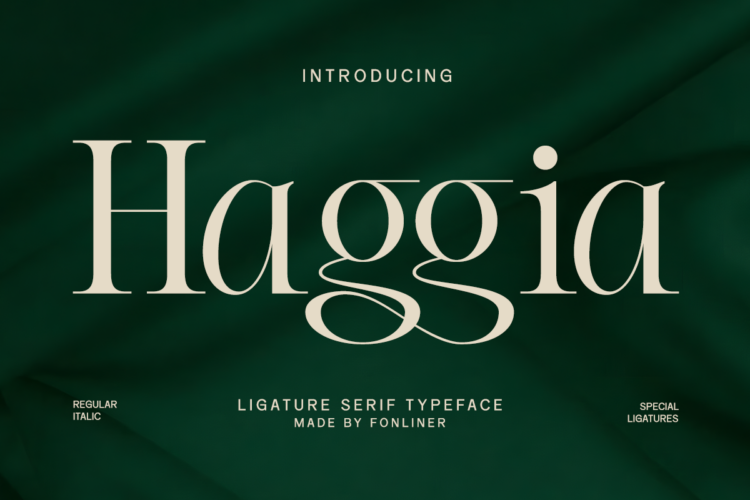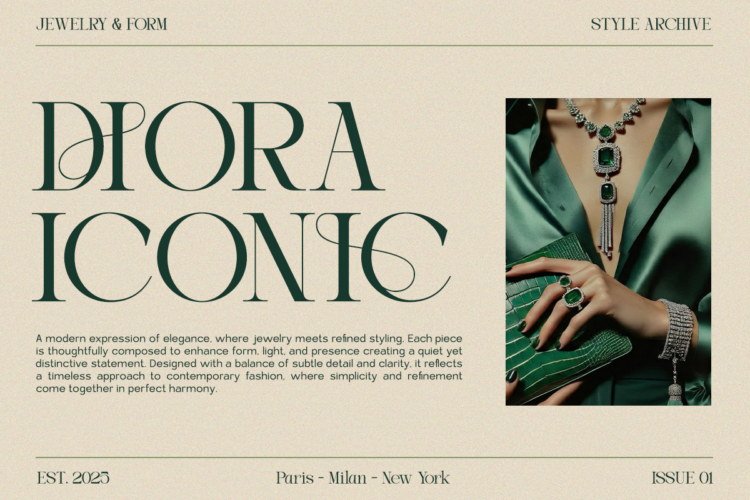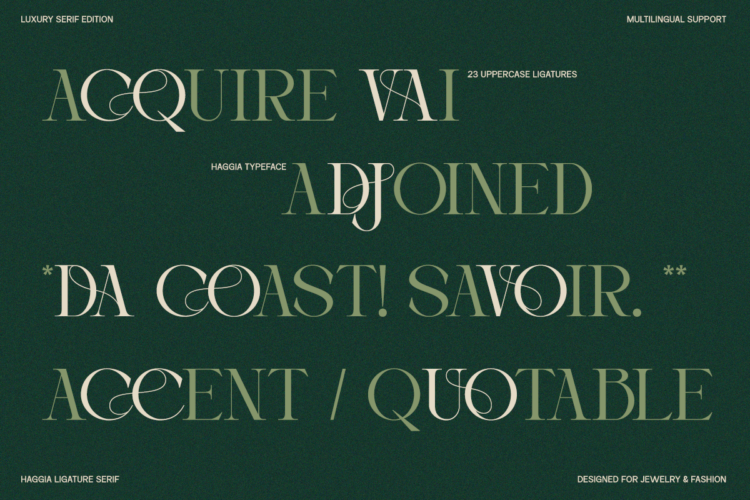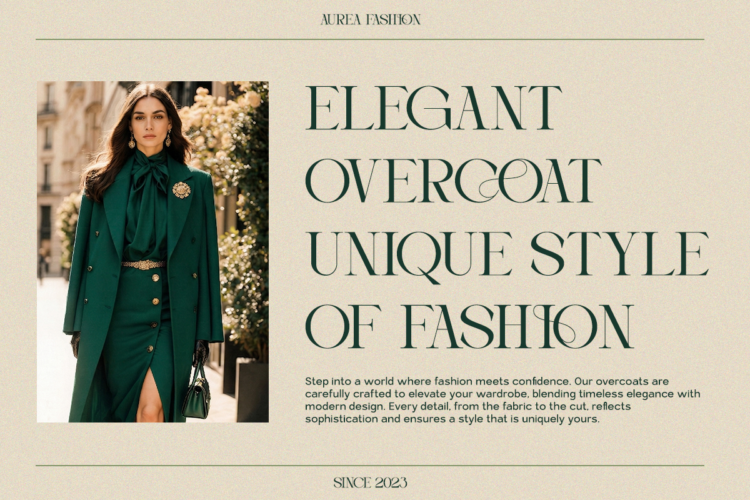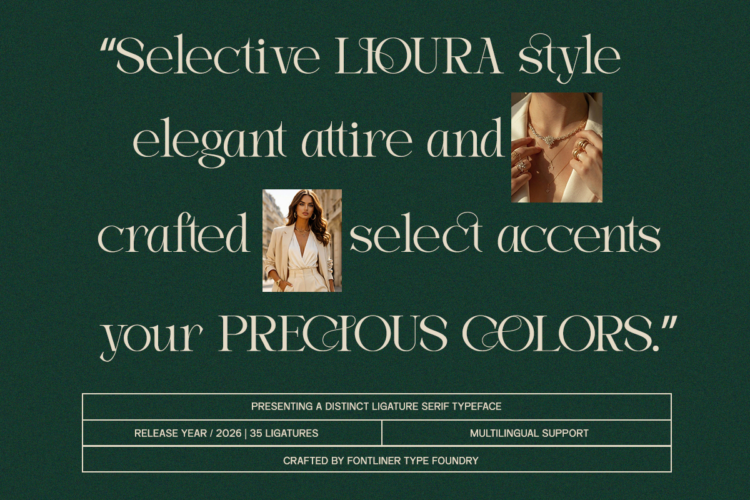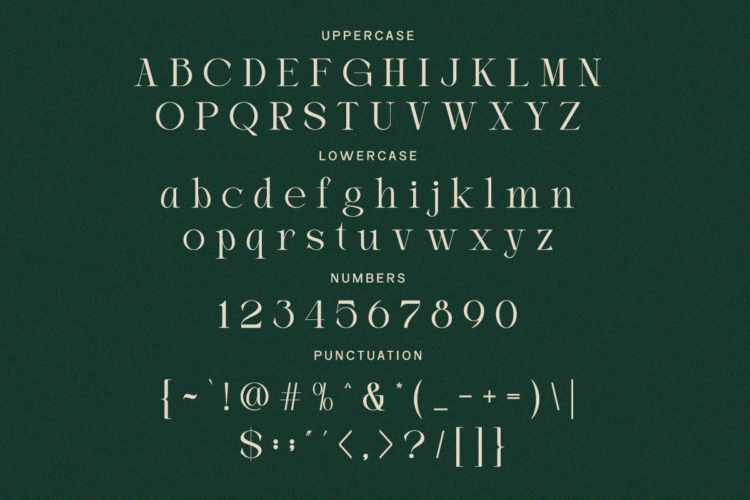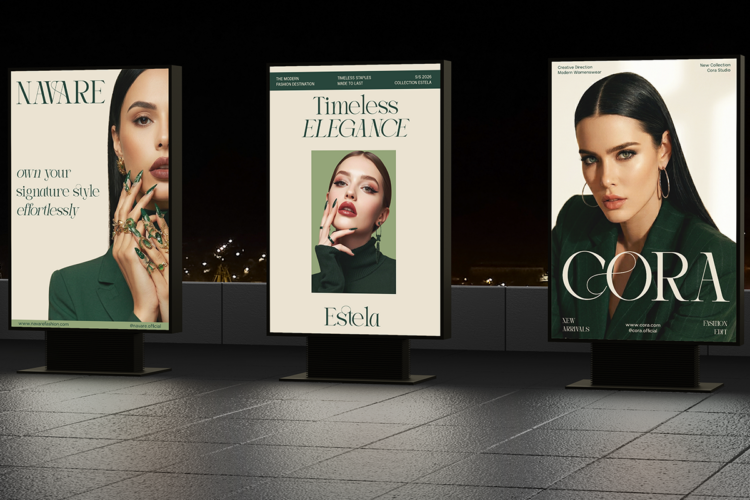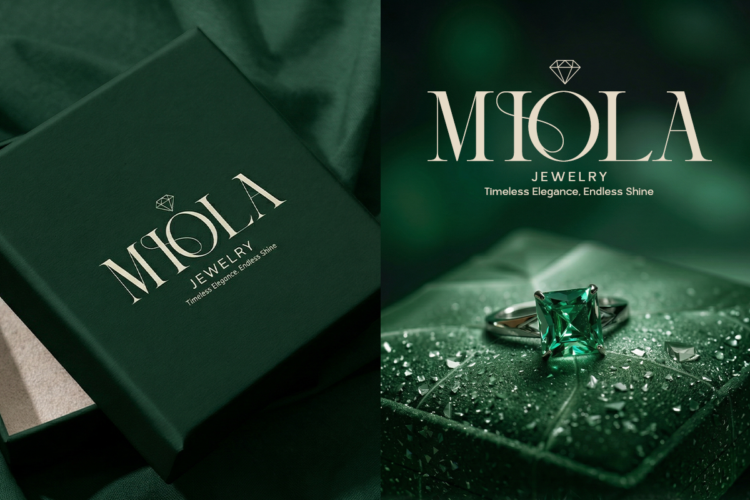
Haggia is a refined ligature serif typeface designed to bring elegance and sophistication to modern branding. With its graceful curves and high-contrast letterforms, this font delivers a luxurious and timeless aesthetic.
Crafted with carefully designed ligatures, Haggia creates beautiful and seamless character connections that enhance the overall visual appeal. This feature makes it perfect for fashion branding, beauty products, editorial designs, and premium packaging.
Haggia is available in Regular and Italic styles, offering flexibility while maintaining a consistent, high-end look. The included ligature characters add a unique and stylish touch, making your typography stand out effortlessly.
Whether you’re building a fashion label, designing a magazine layout, or creating a luxury logo, Haggia gives your work a distinctive and elegant identity.
Features:
– Stylistic Ligatures